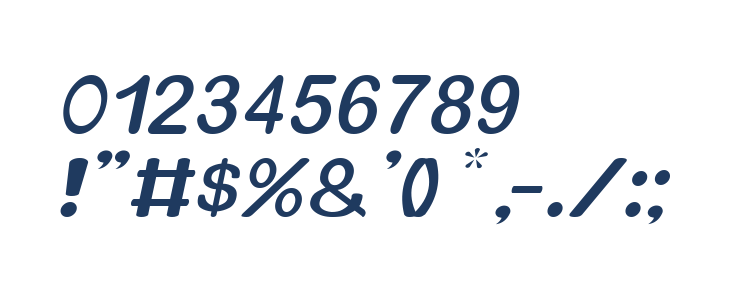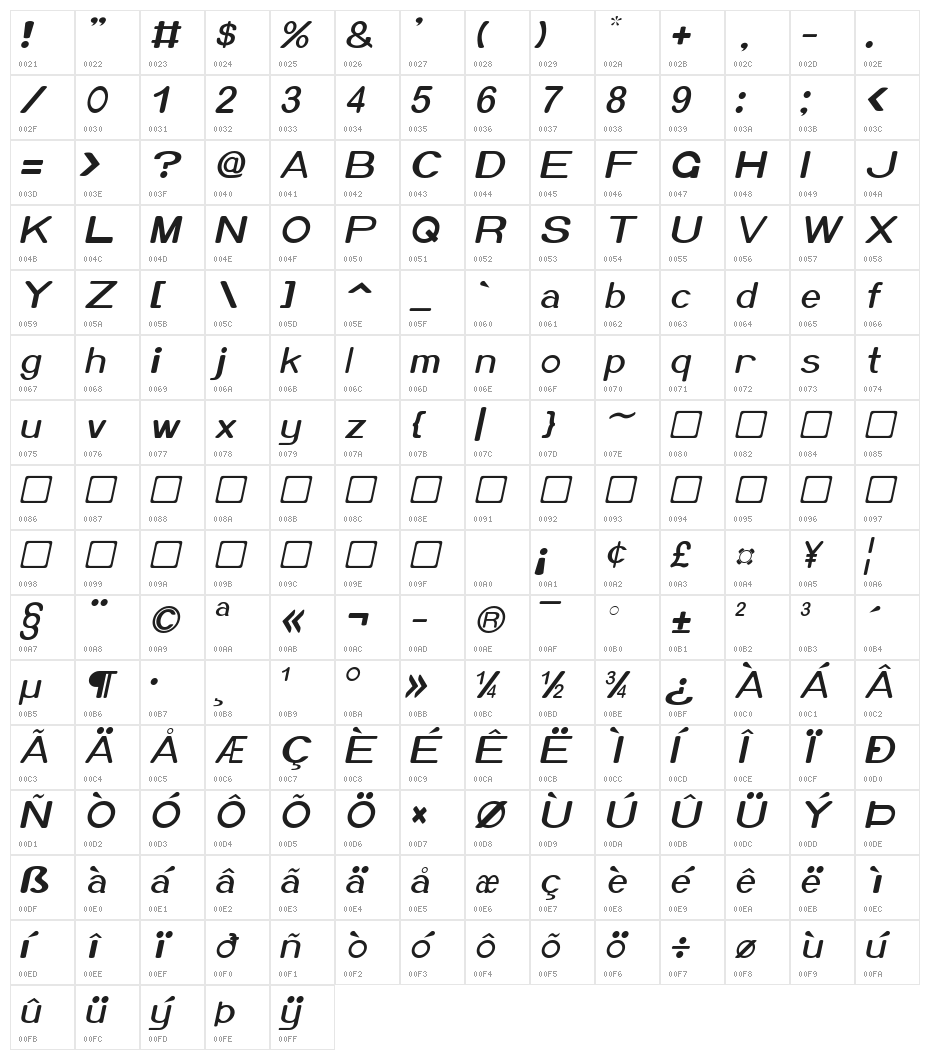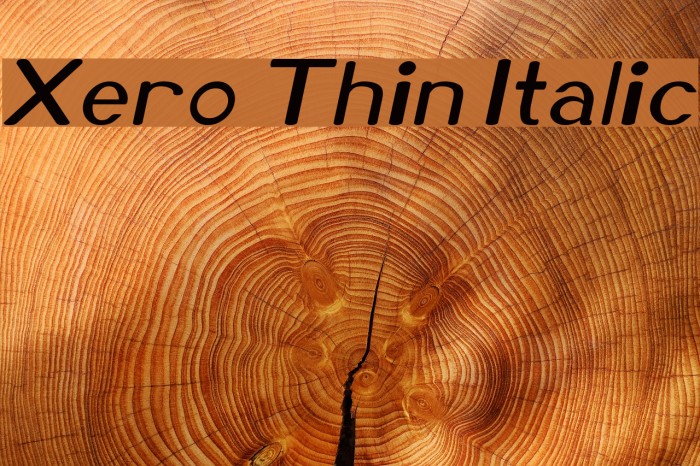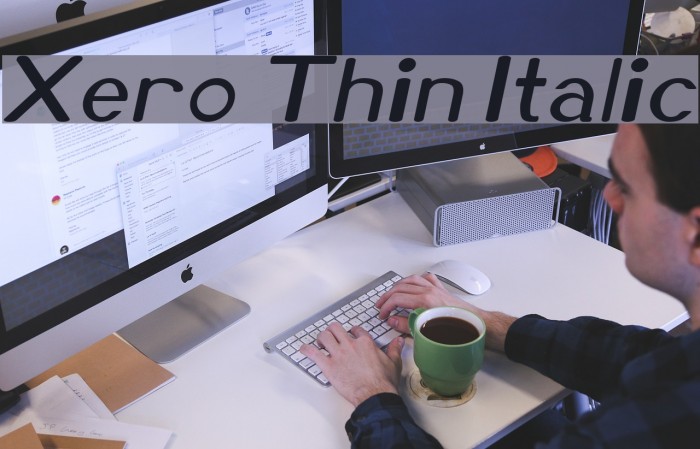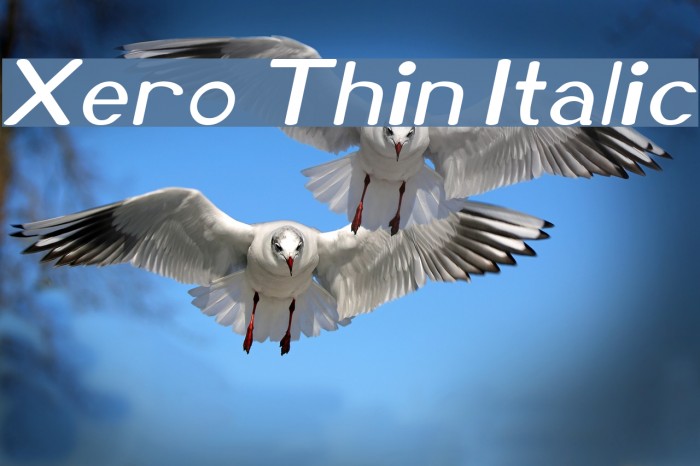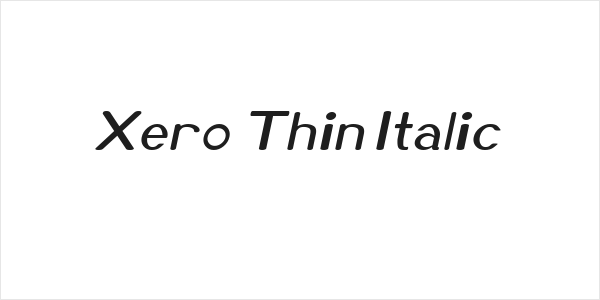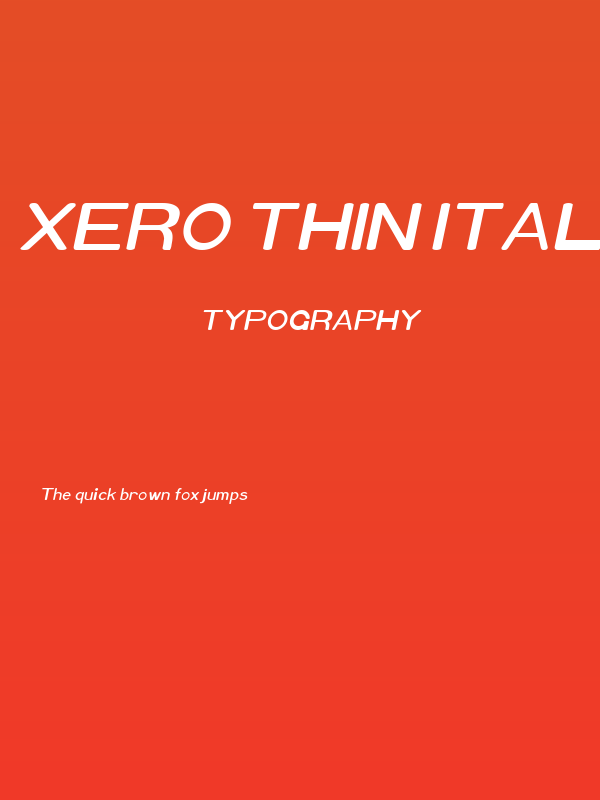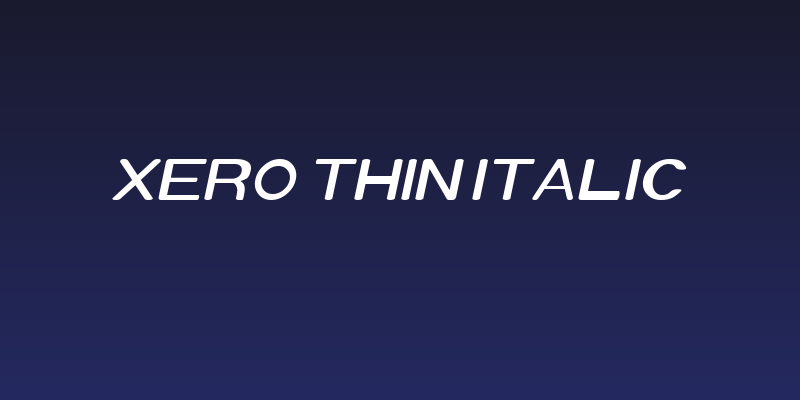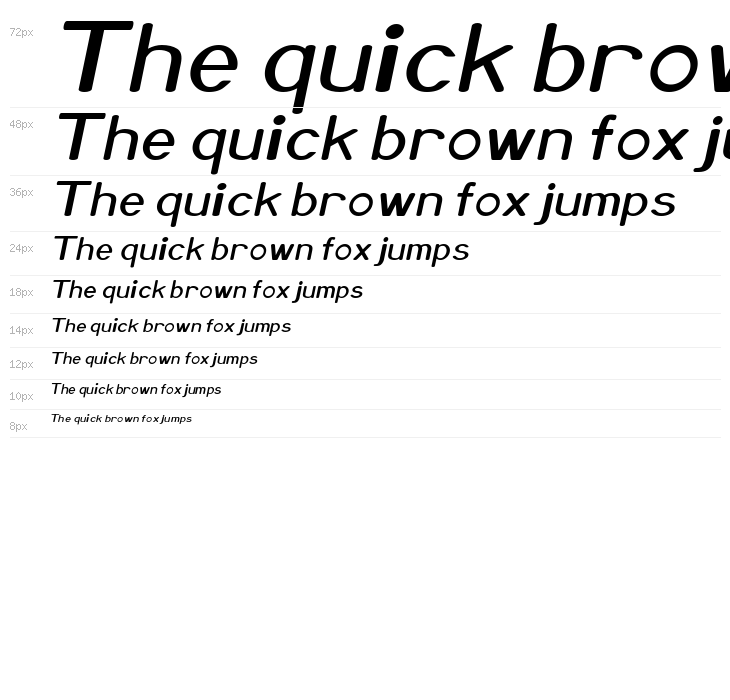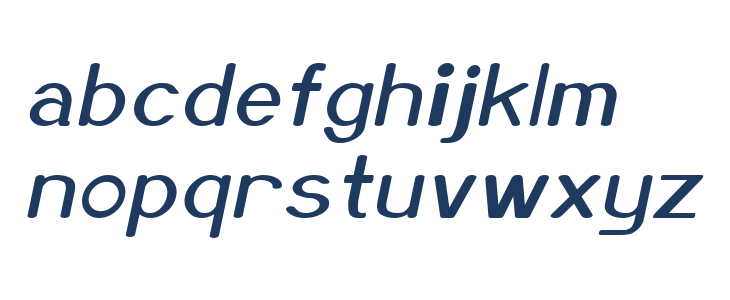
Xero Thin Italic Font
Xero Thin Italic Description
This font features a sleek and modern design with a thin and italicized style. The characters are slightly slanted, giving a sense of motion and elegance. The strokes are uniform and consistent, contributing to a clean and professional appearance. The uppercase and lowercase letters maintain a harmonious balance, while the numerals and special characters are clear and easily distinguishable. The overall aesthetic is contemporary, making it suitable for a variety of design applications.